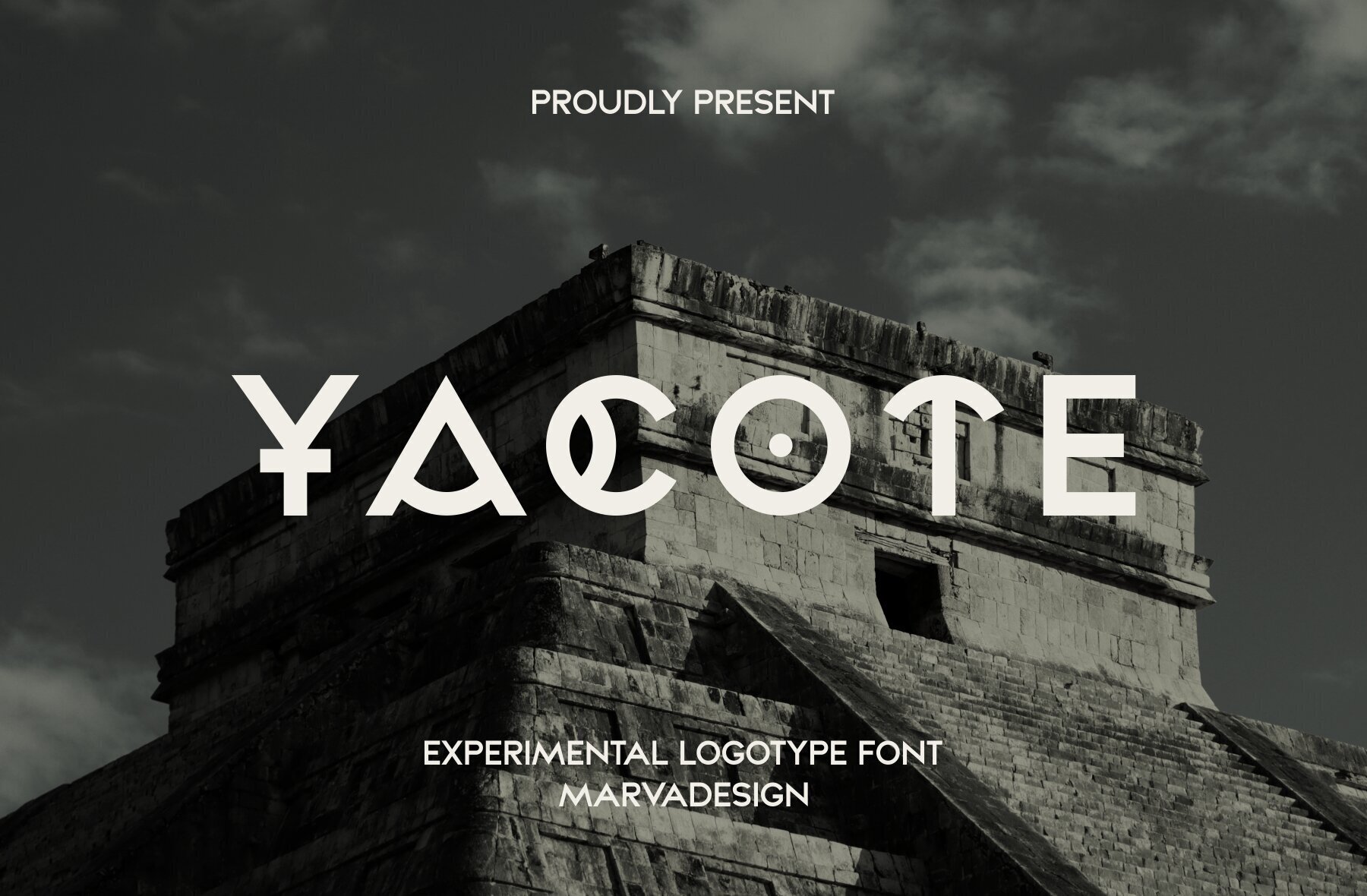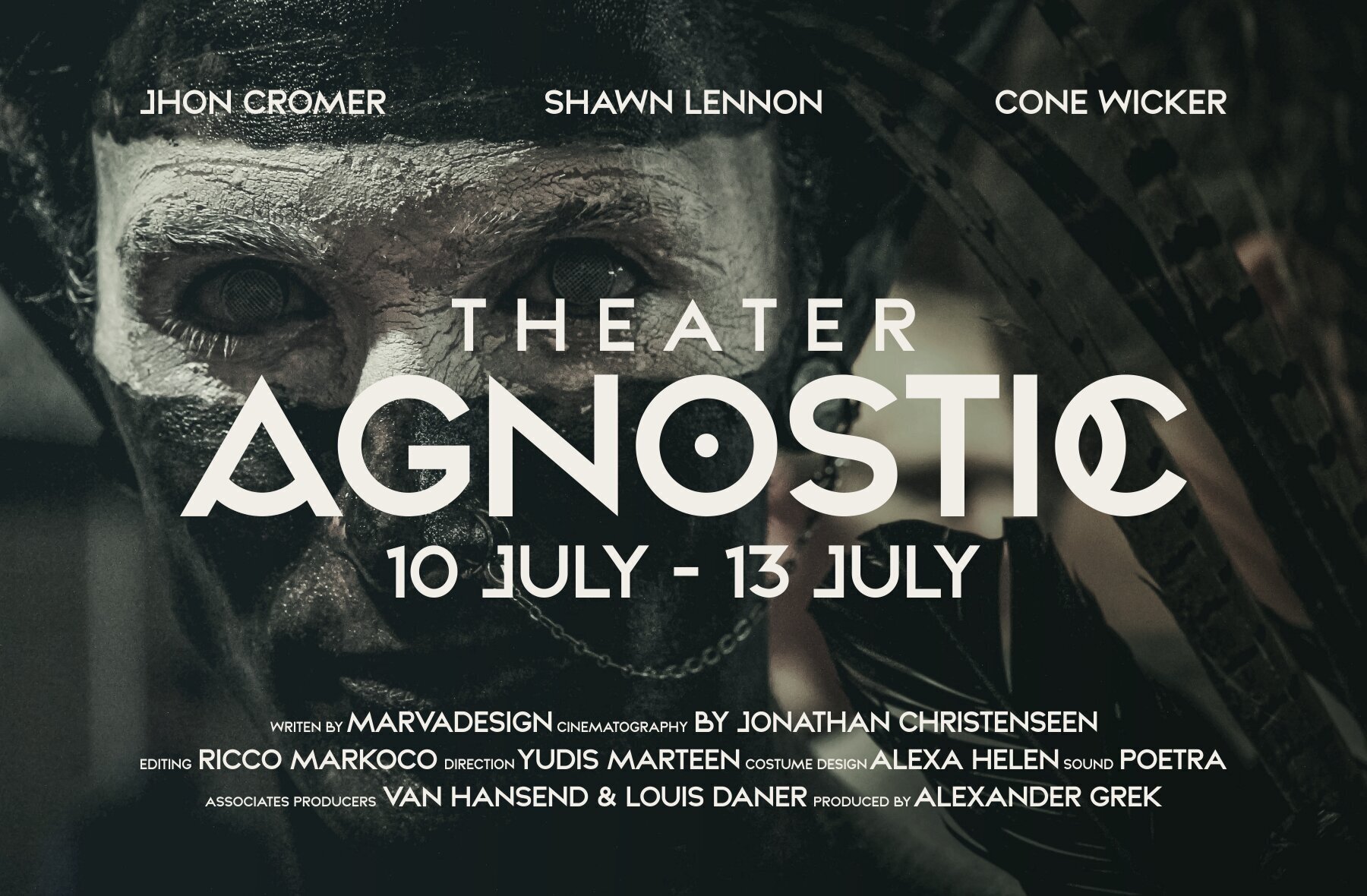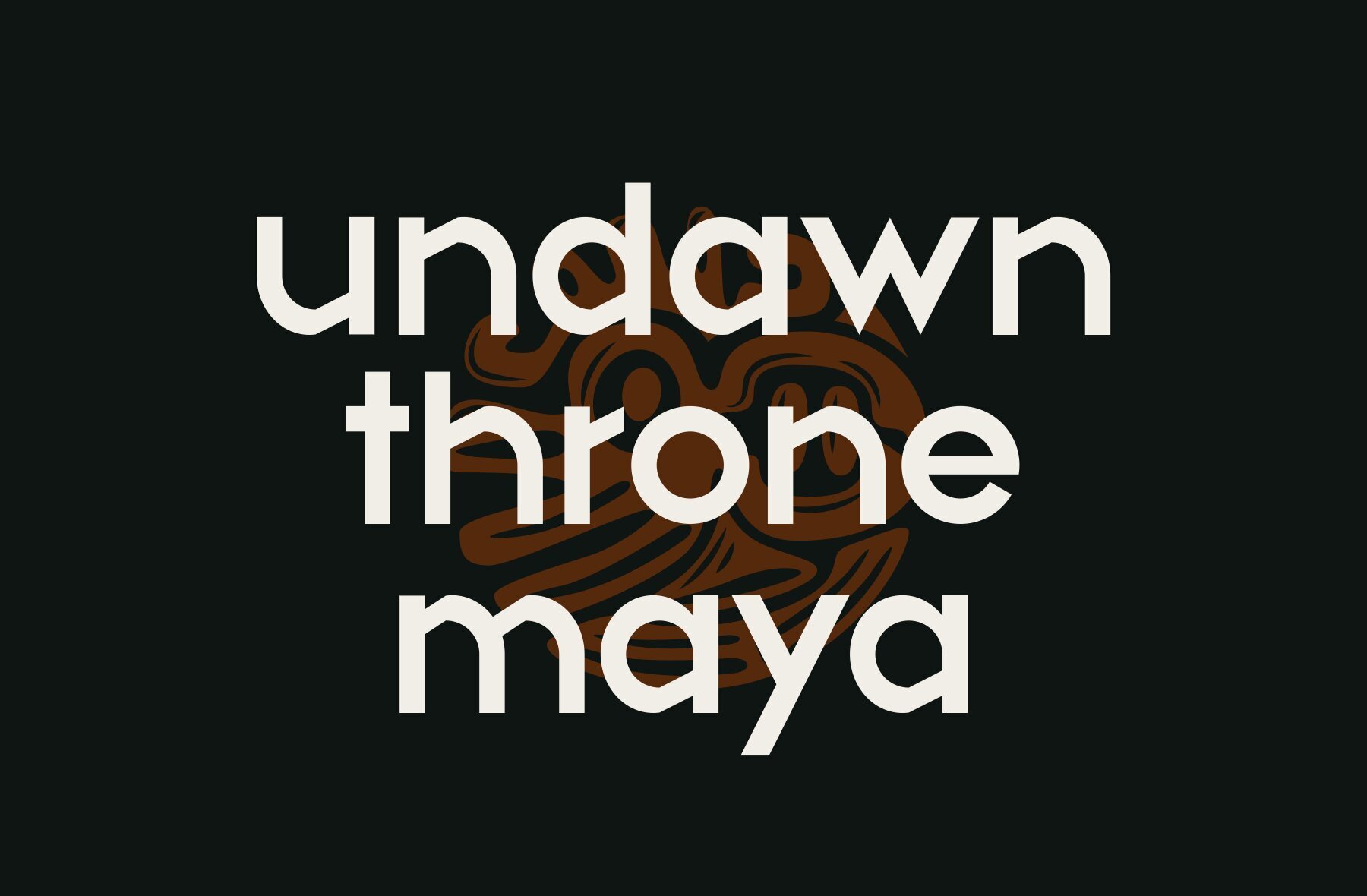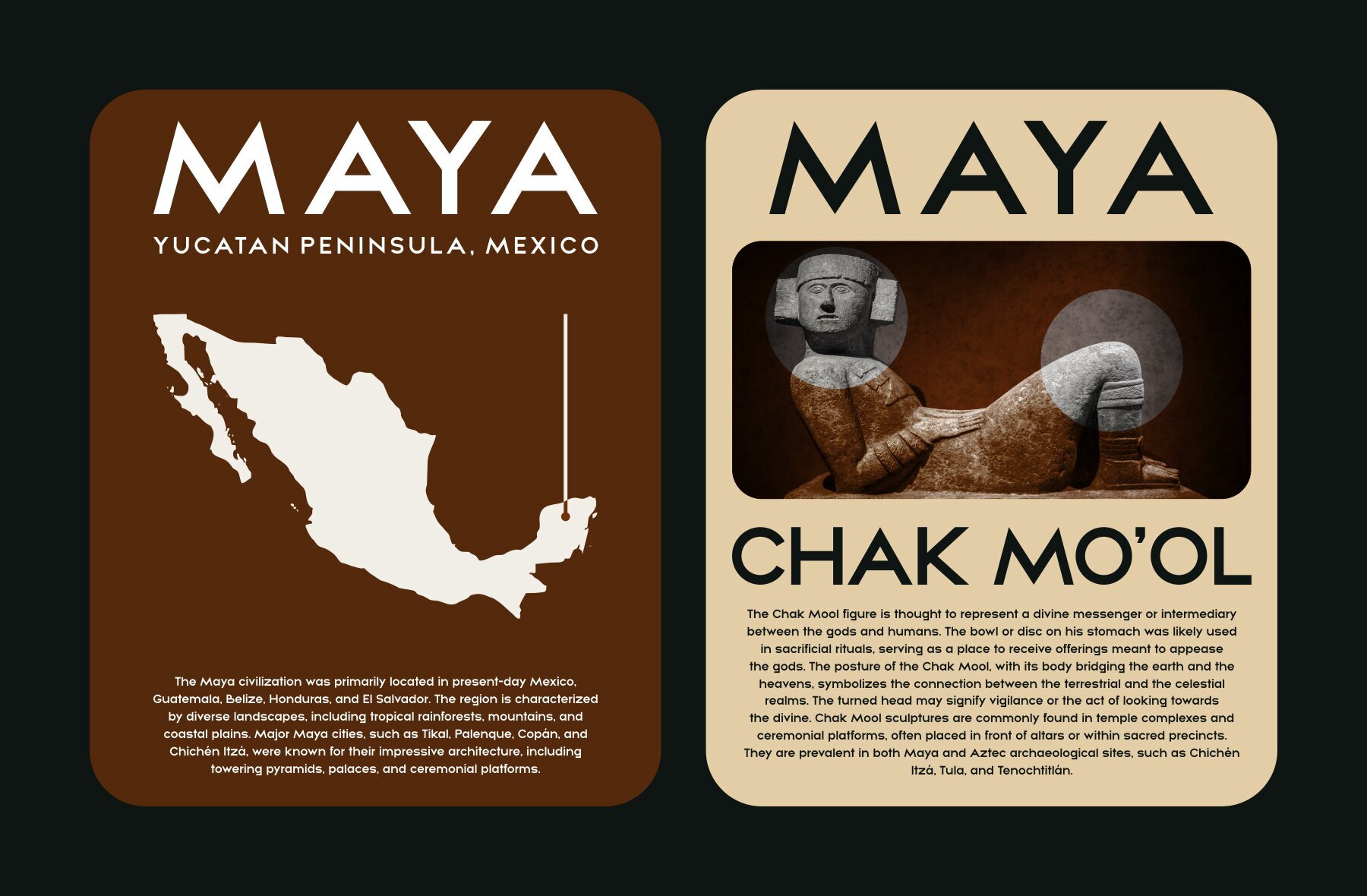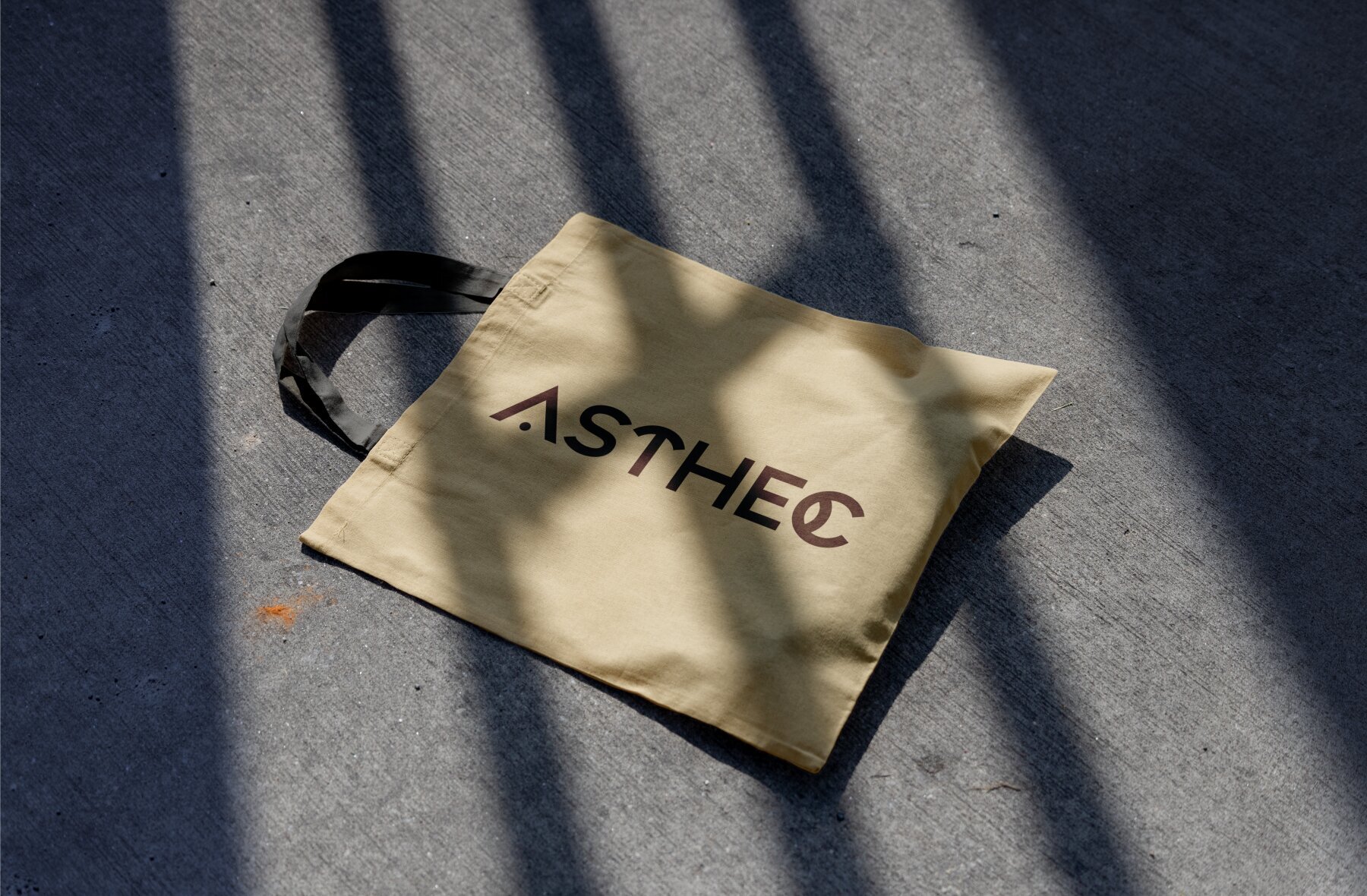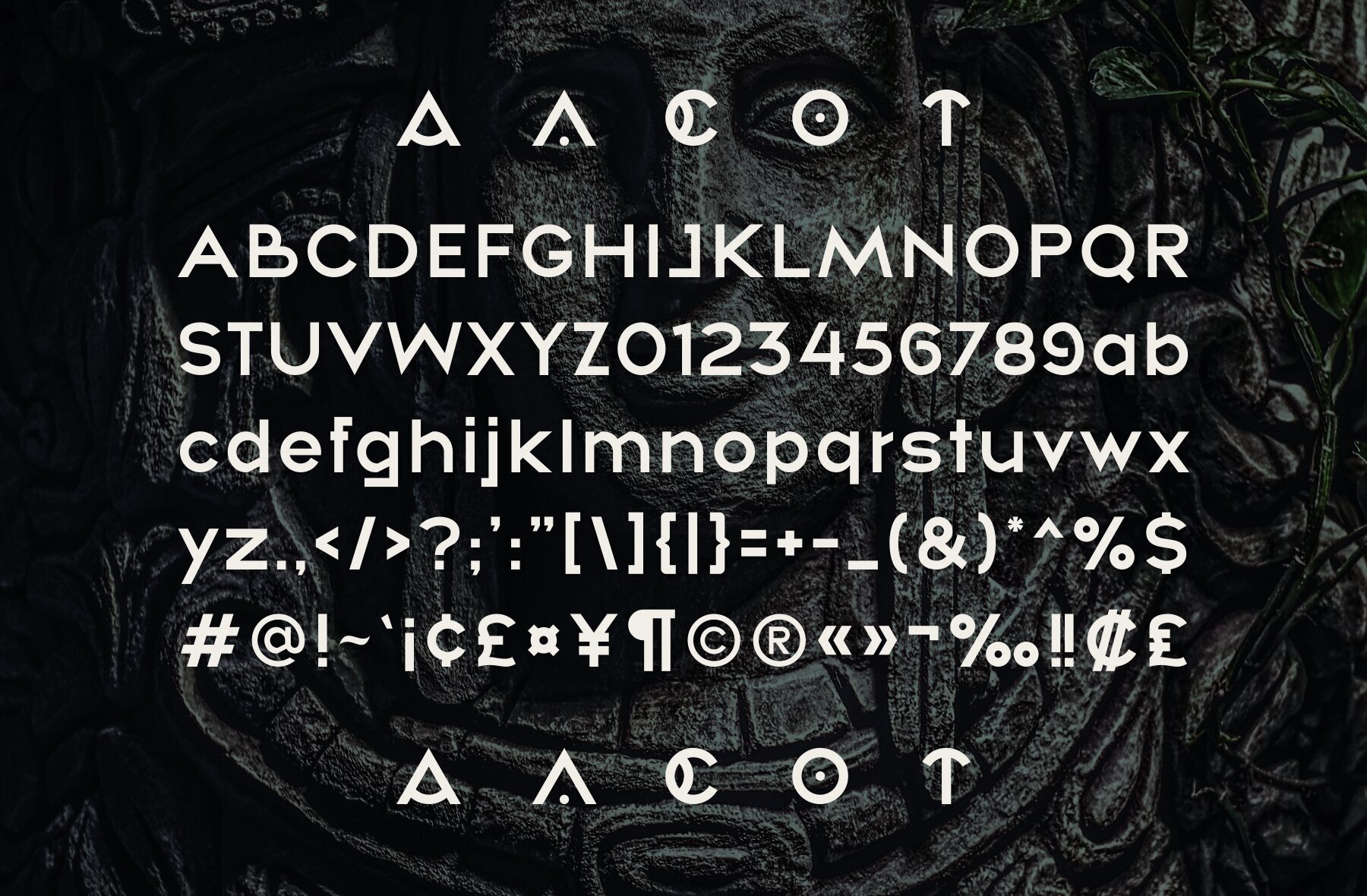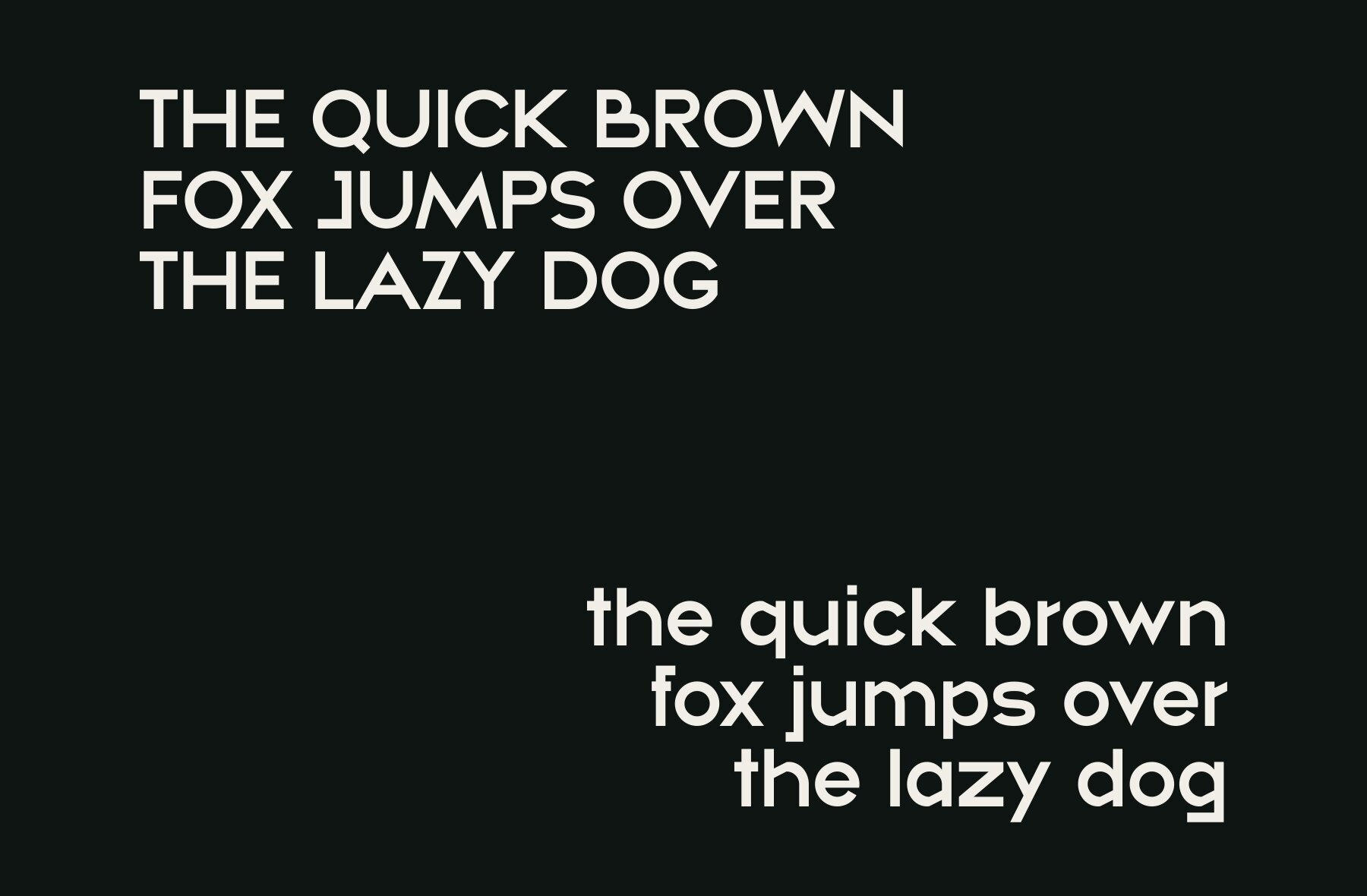
Yacote Font
Yacote Regular
Introducing Yacote is a display sans-serif font that blends traditional Maya elements with a modern, elegant style, making it ideal for logotype and branding purposes. This typeface captures the essence of the ancient Maya civilization through its distinctive design features while maintaining a clean and contemporary appearance. Usage and Application